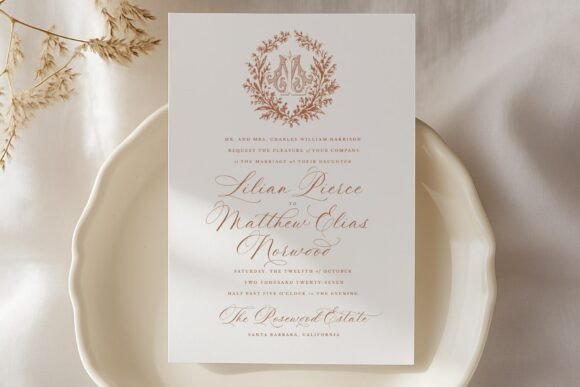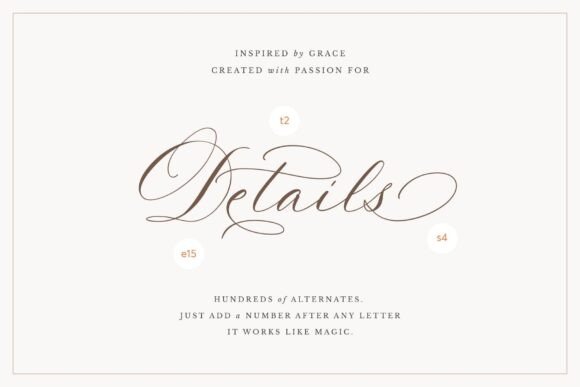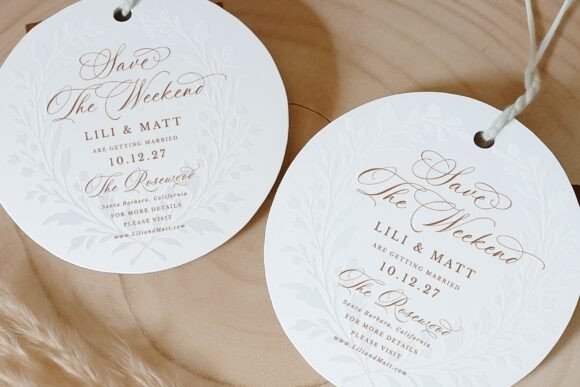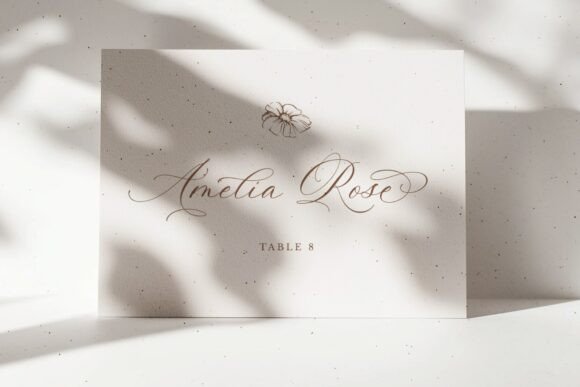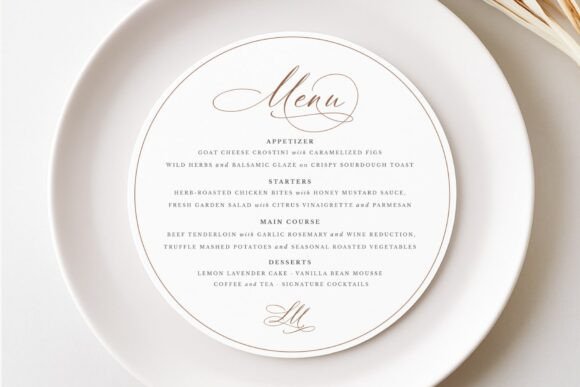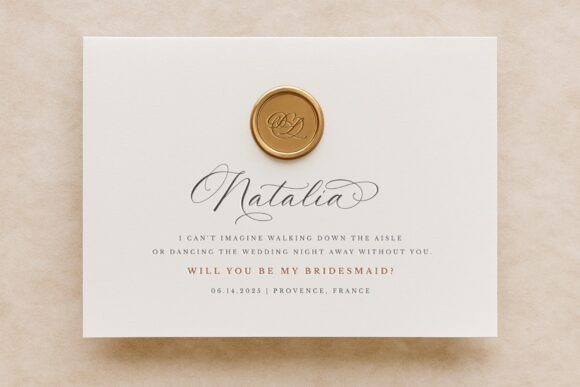
Introduction to La Rumba Font
Introducing La Rumba, a captivating blend of romantic handwriting and contemporary calligraphy.
Crafted meticulously to infuse an essence of elegance, freedom, and allure to your engravings, this exquisite font offers up to 20 distinct alternatives for each lowercase letter and between 6-10 variants for every uppercase With La Rumba’s striking curves and dynamic strokes, you can encapsulate a sense of richness, serenity, and delicacy in your wedding invitations, logos, or any creative venture.
Key Features of La Rumba Font
Why Choose La Rumba Font?